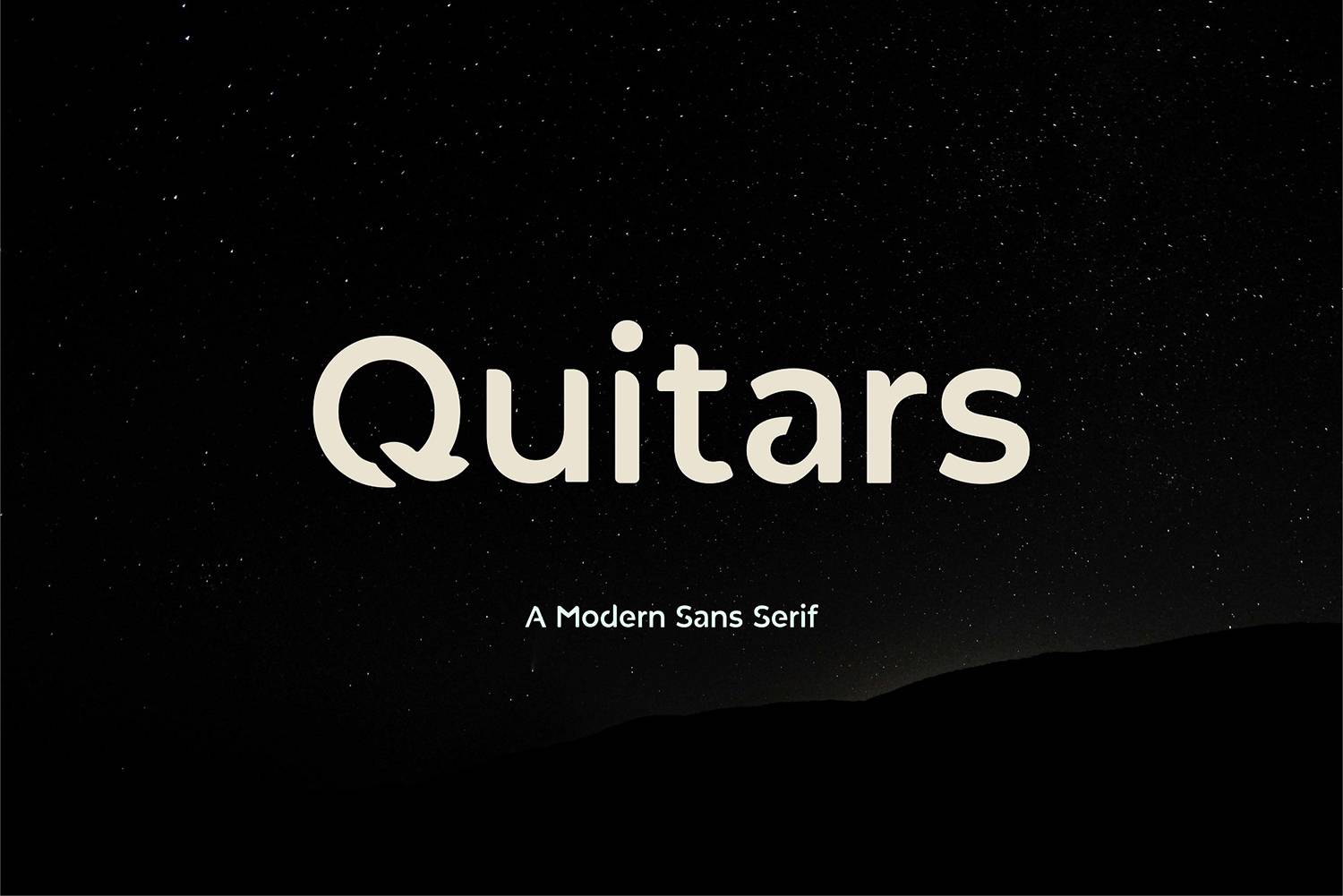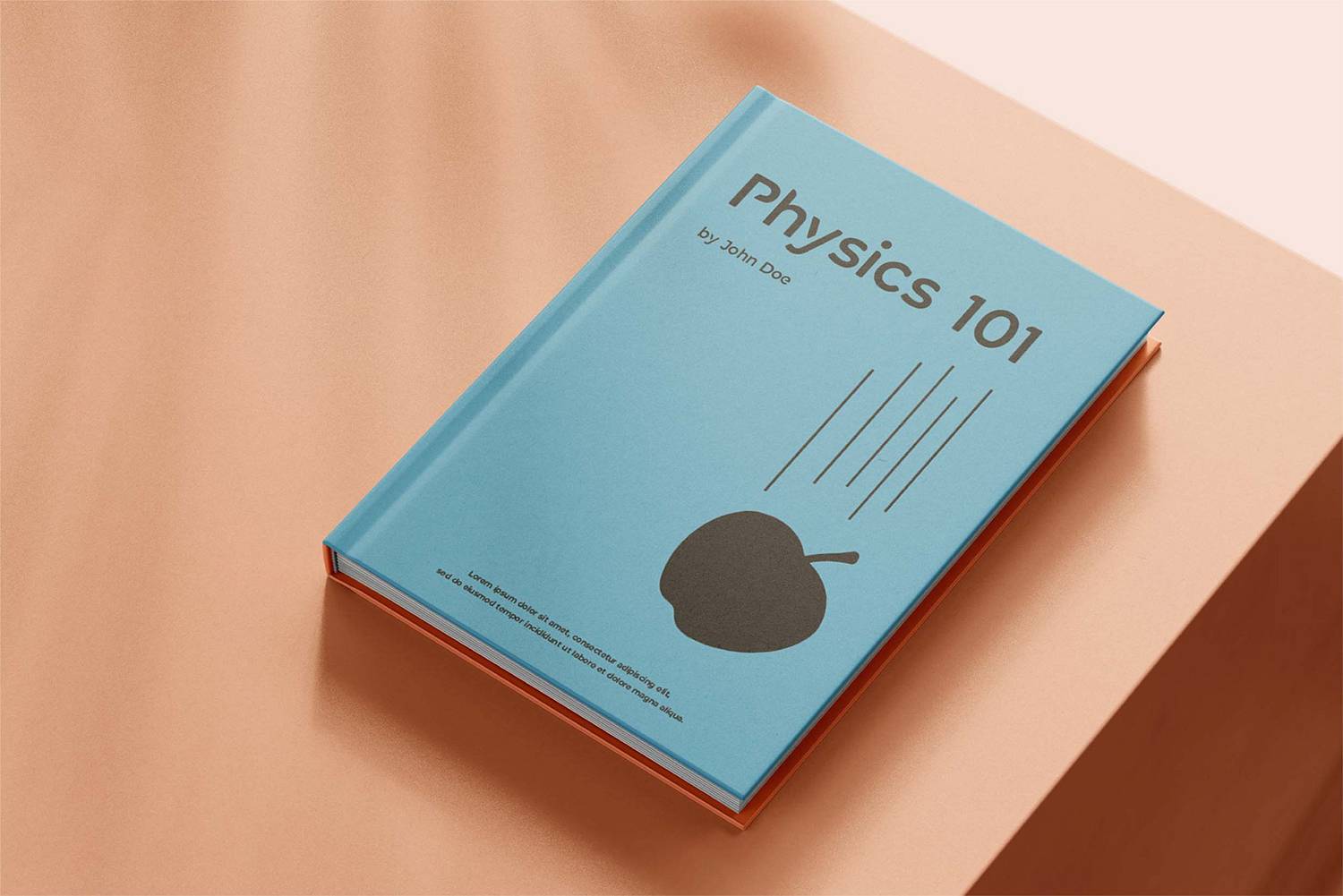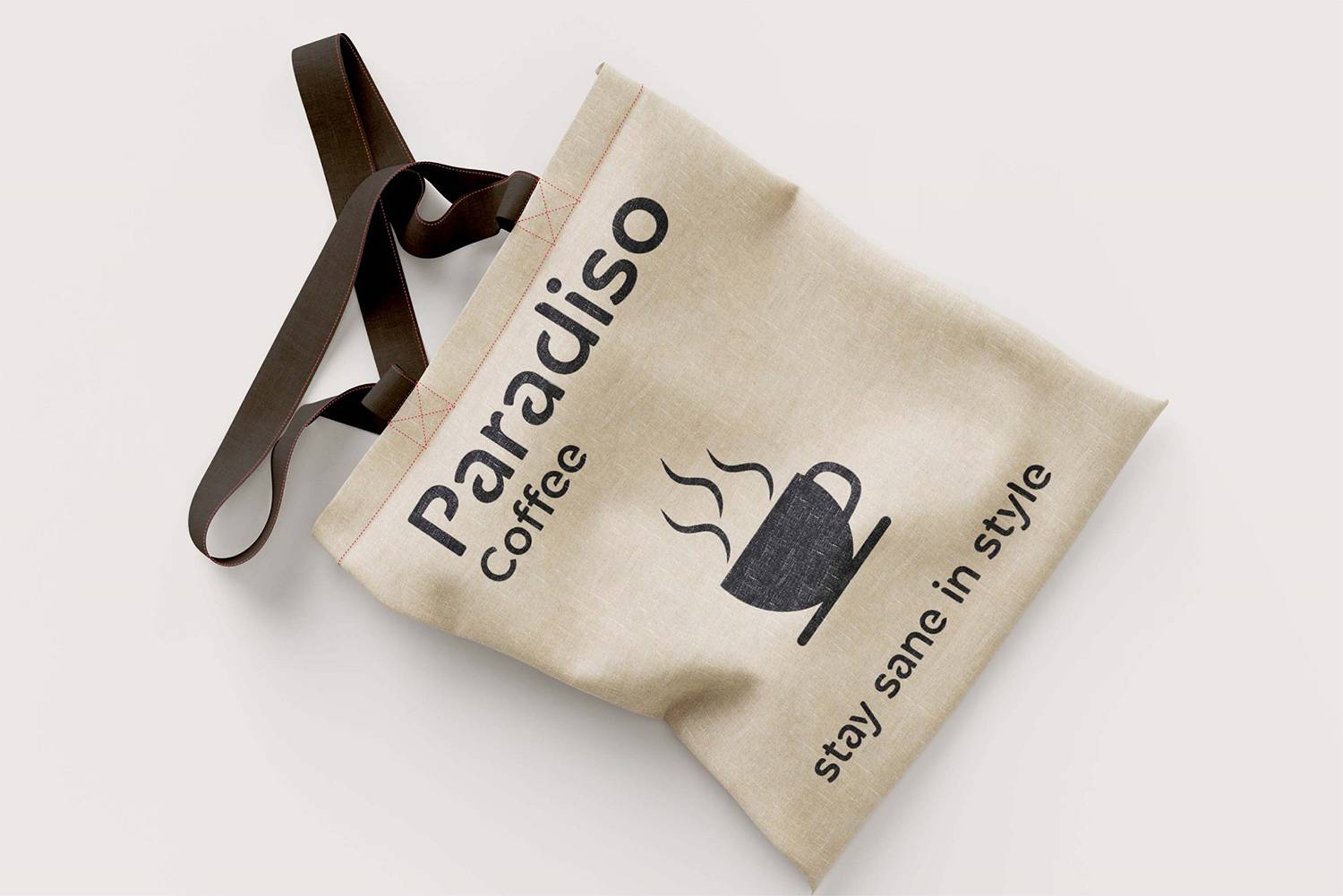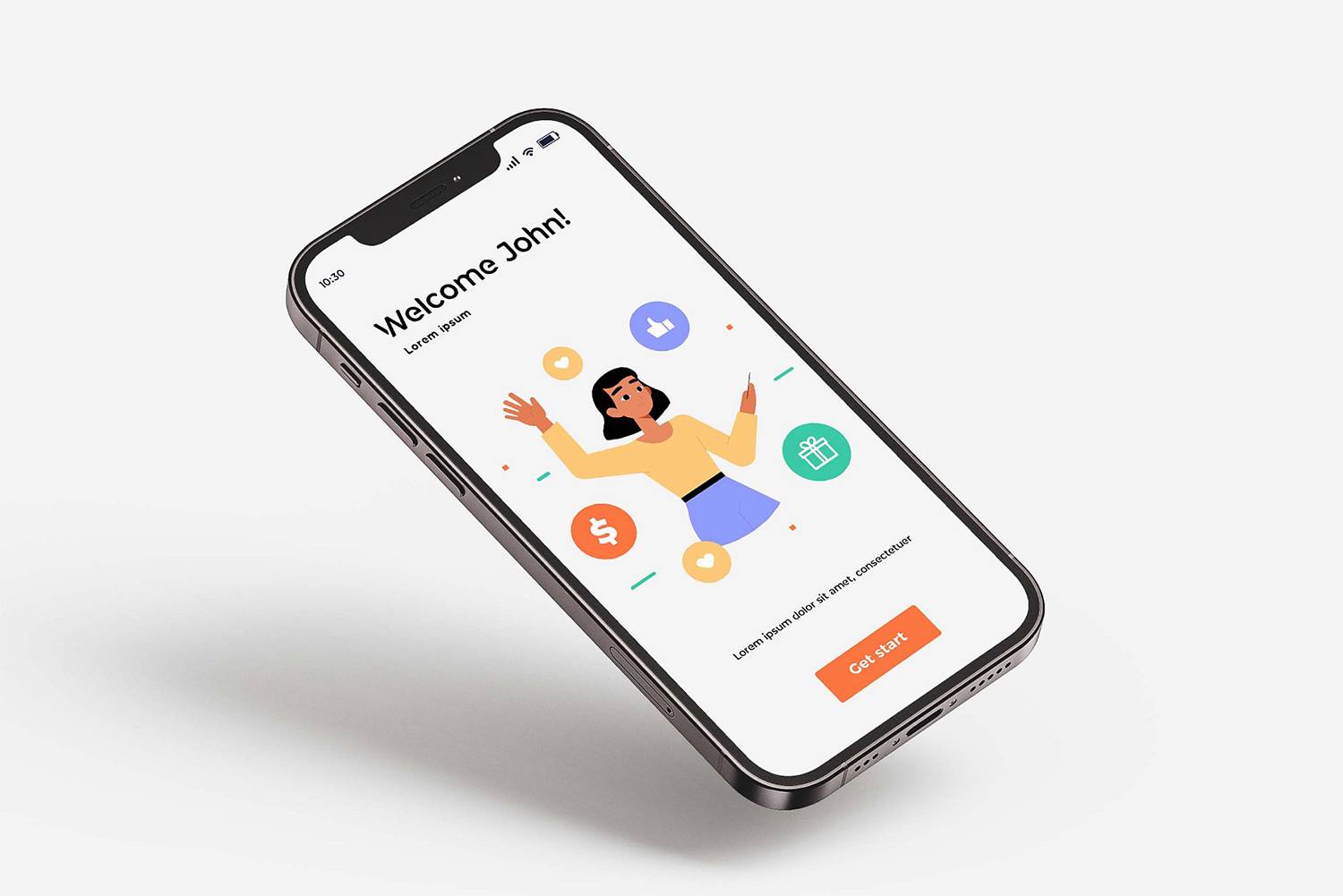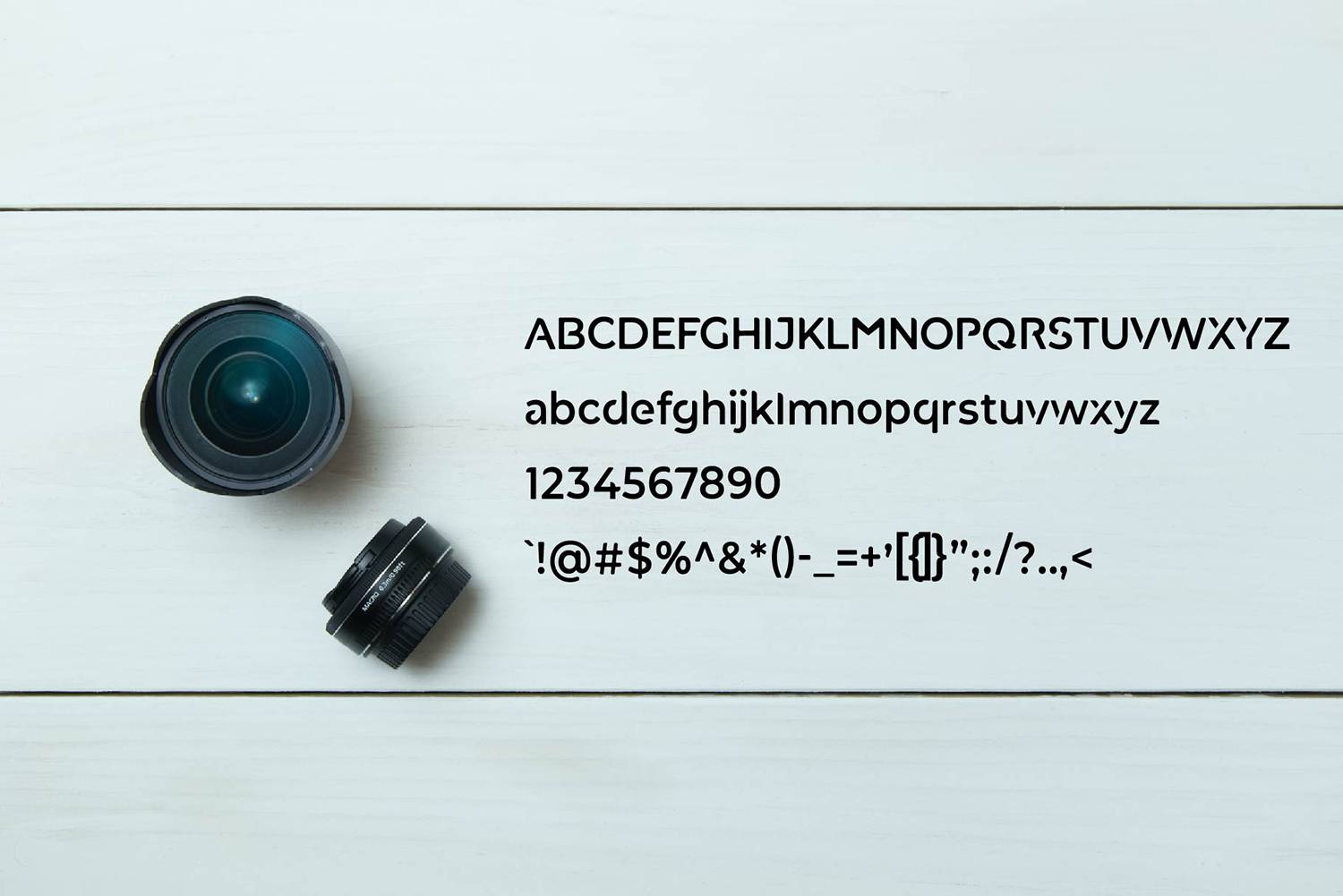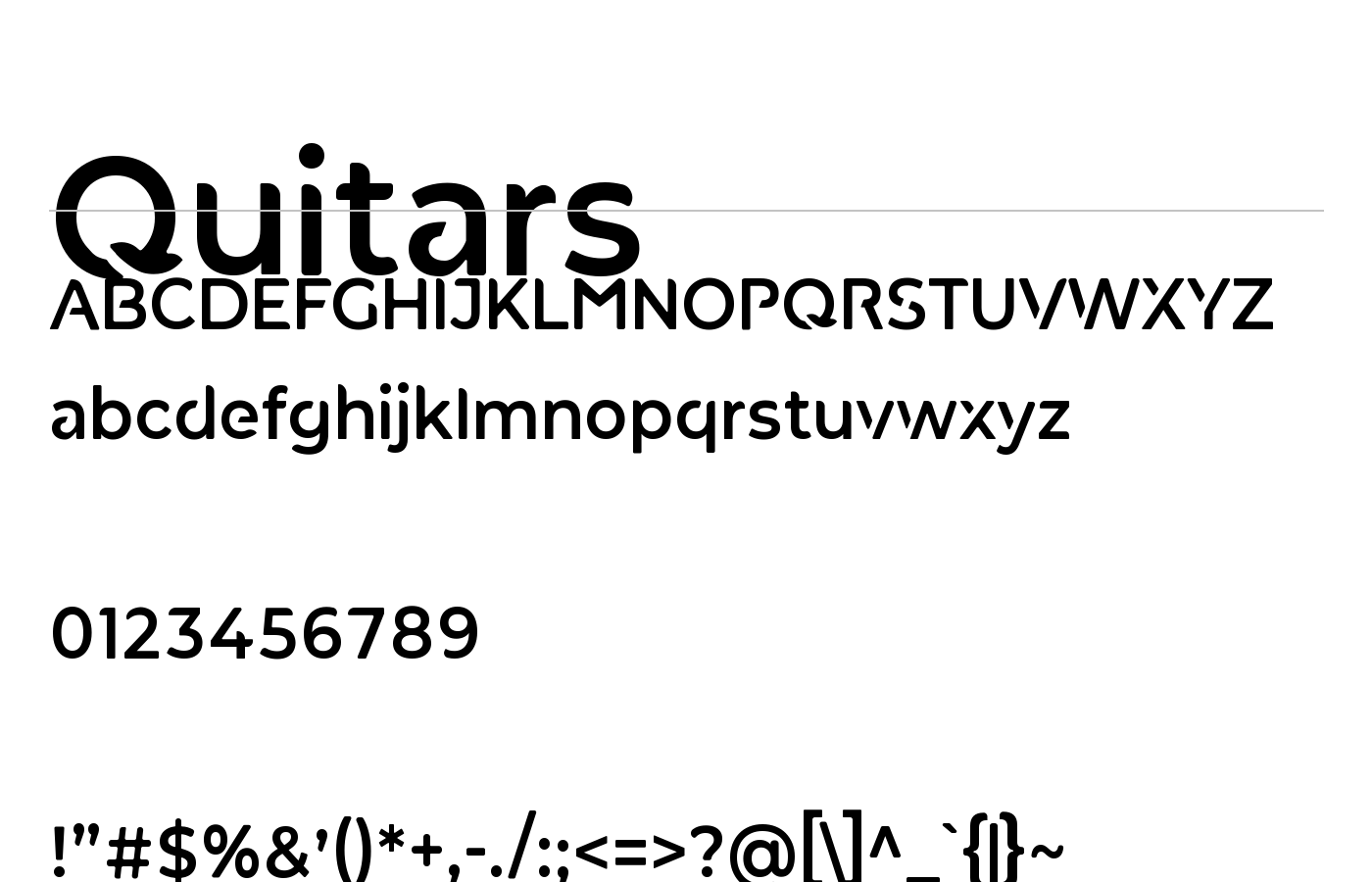
Quitars is a modern sans serif font with a clean, geometric feel and subtle artistic twists in certain characters that add uniqueness without sacrificing readability. It features a regular weight with a slightly condensed width, a medium x-height, and low stroke contrast, making it versatile for both display and text use. This font works well for contemporary branding, editorial headlines, and stylish web projects where a fresh, approachable yet distinctive look is desired.
| Designer | Arliyan |